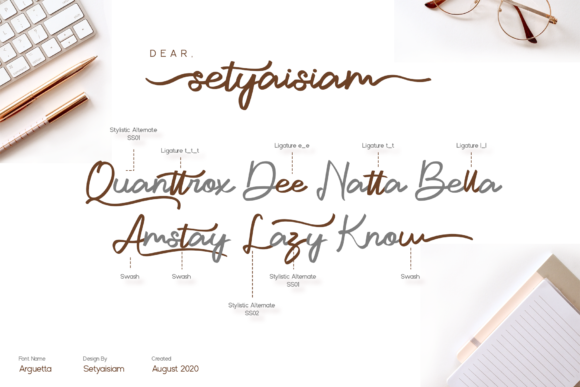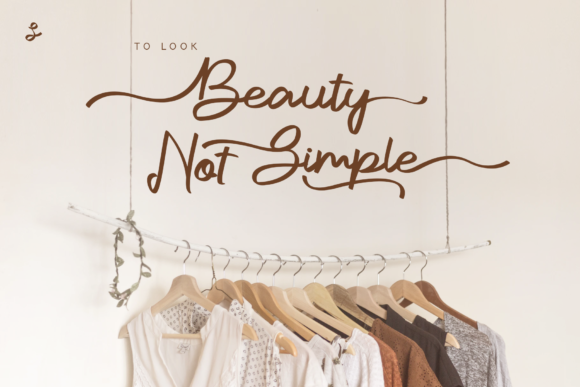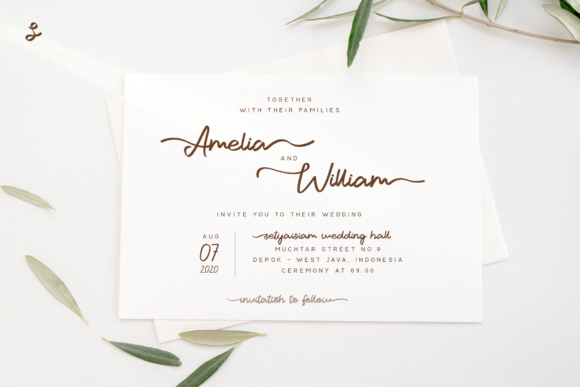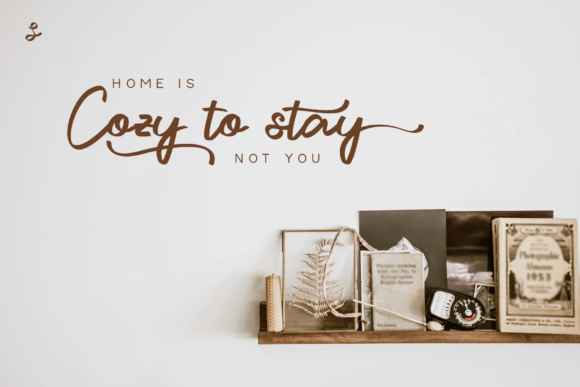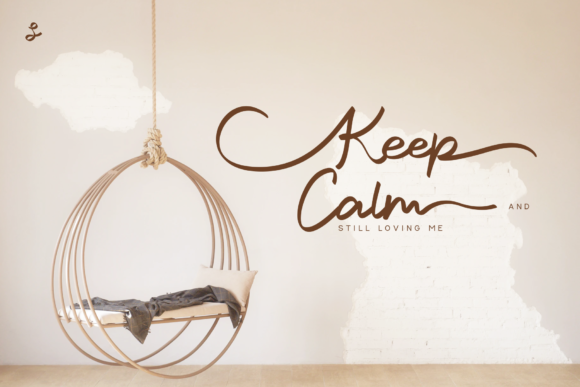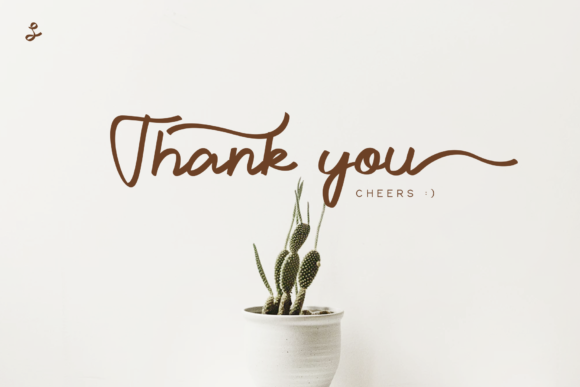
The Designer’s Delight: Arguetta Font
I’ll never forget the moment I stumbled upon the perfect font for a client’s wedding invitation project. I had been searching for what felt like an eternity, trying out font after font, but nothing seemed quite right. That was until I discovered Arguetta – an elegant and flowing handwritten font that stole my heart. In this article, I’ll share my love for Arguetta, its features, and how to make the most of it in your designs.
Arguetta: A Designer’s Dream
Arguetta is more than just a font – it’s a statement piece. With its varying baseline, smooth lines, gorgeous glyphs, and stunning alternates, it’s perfect for projects that require a touch of elegance and sophistication. This PUA-encoded font makes it easy to access all the glyphs and swashes, giving you endless creative possibilities.
- ✨ Elegant and flowing handwritten design
- ✅ Varying baseline for a natural, organic feel
- ✅ Smooth lines and gorgeous glyphs
- ✅ Stunning alternates for added creativity
- ⚠️ May require some time to get used to the OpenType features
- 🤔 Limited use on very small font sizes due to intricate design
The Story Behind Arguetta
Arguetta was designed with the intention of creating a font that embodies elegance and sophistication. The designer aimed to craft a font that would be perfect for creative projects, such as wedding invitations, branding, and packaging. With its beautiful, flowing lines and stunning alternates, Arguetta has become a favorite among designers and crafters alike.
A: PUA (Private Use Area) encoding allows font users to access a wide range of glyphs and swashes, making it easier to create unique and creative designs.
Q: Is Arguetta suitable for body text?
A: While Arguetta is a beautiful font, it’s best suited for titles, headings, and short paragraphs. Its intricate design may not be ideal for large blocks of body text.